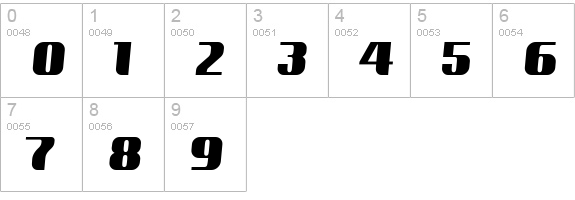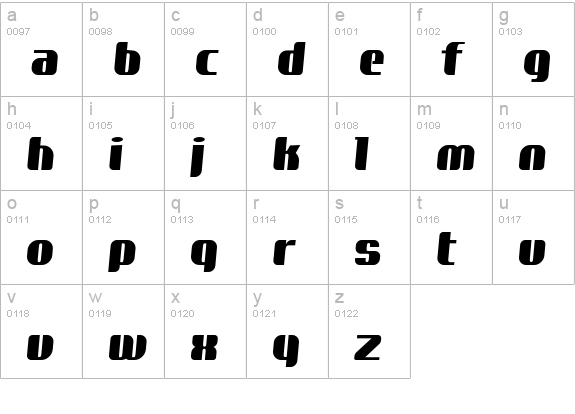
Camellia ExtraBold Font Details
Camellia ExtraBold is an extra-heavy, attention-grabbing variant in the Camellia typeface family \xE2\x80\x94 well suited to high-impact headlines, posters, and bold branding.
Camellia ExtraBold font is a striking and bold typeface that exudes power and strength. Its thick strokes and sharp edges make it perfect for making a bold statement in your designs. Whether you're looking to create eye-catching headlines or add emphasis to your text, Camellia ExtraBold is sure to grab attention. This font is not only visually appealing but also versatile, making it suitable for a wide range of design projects. From posters and flyers to logos and branding, Camellia ExtraBold will help your message stand out. Best of all, Camellia ExtraBold is free to download at FontsMarket.com. So why wait? Add this impressive font to your collection today and take your designs to the next level!